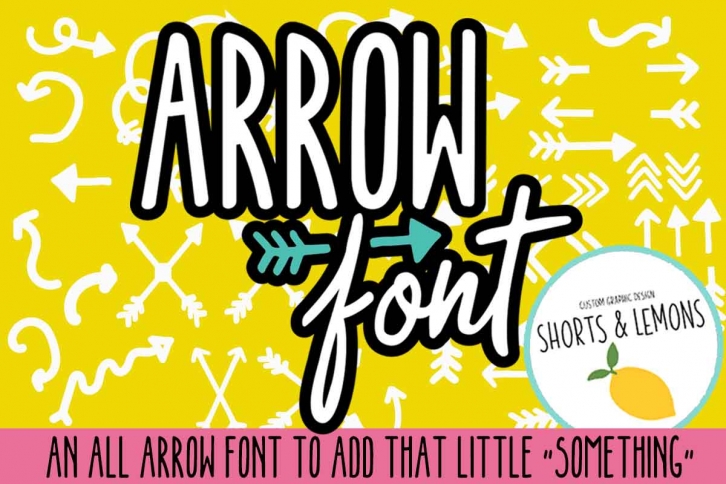
SUPER ARROW is a gorgeous font that was realeased on July 13, 2018. The font can be used in many style contexts and design environments. Perfect for invitations, magazines, websites, logos, and more! It was designed by Shorts and Lemons and the file size is 11.57 MB. Thanks for checking out this font!